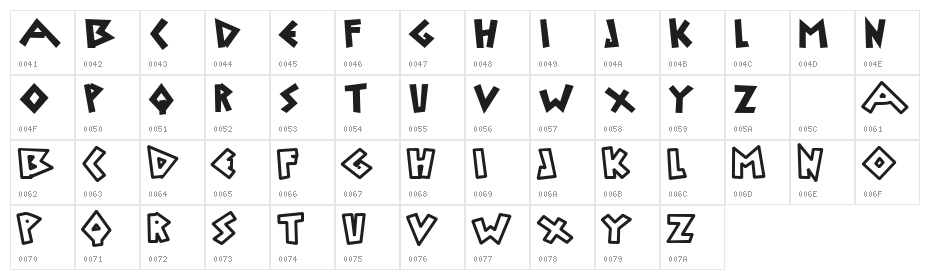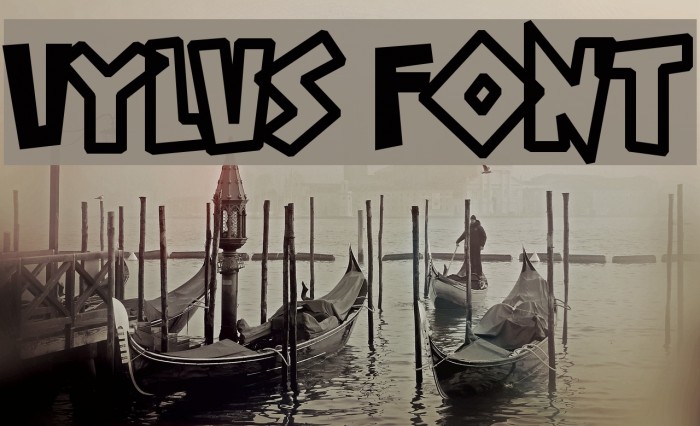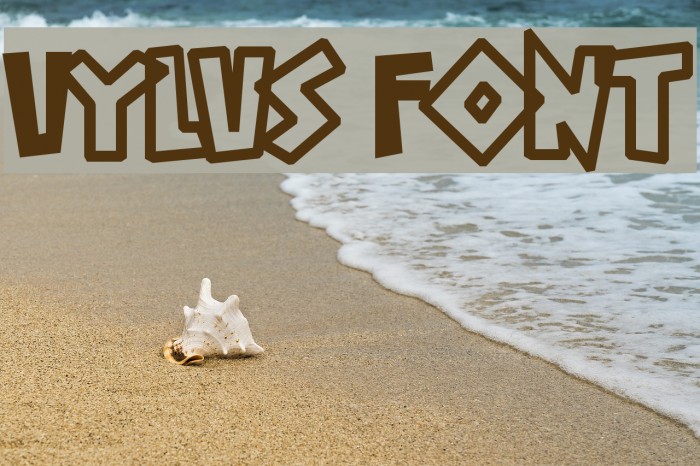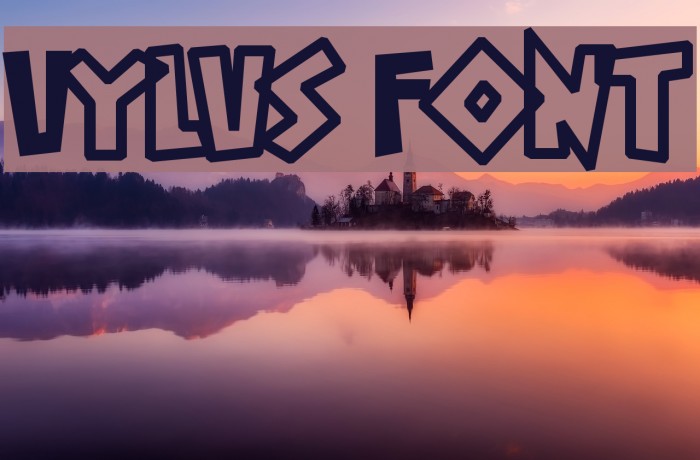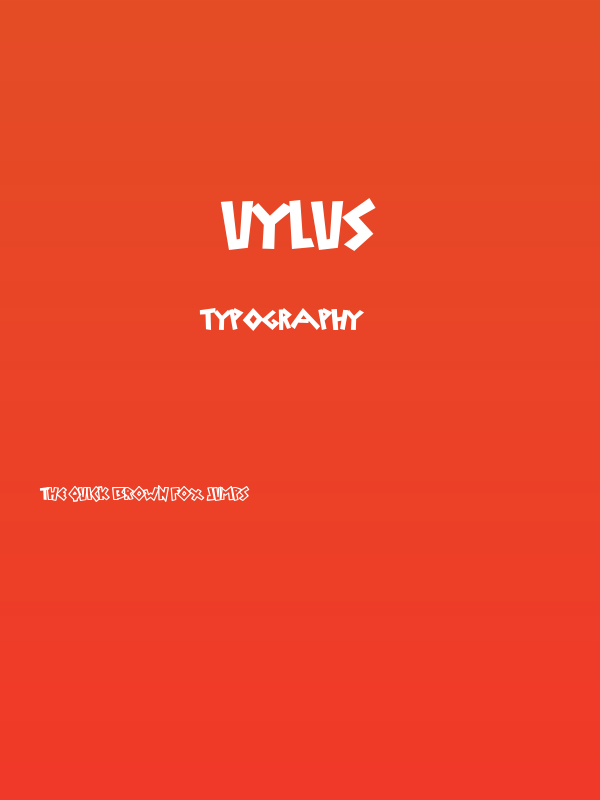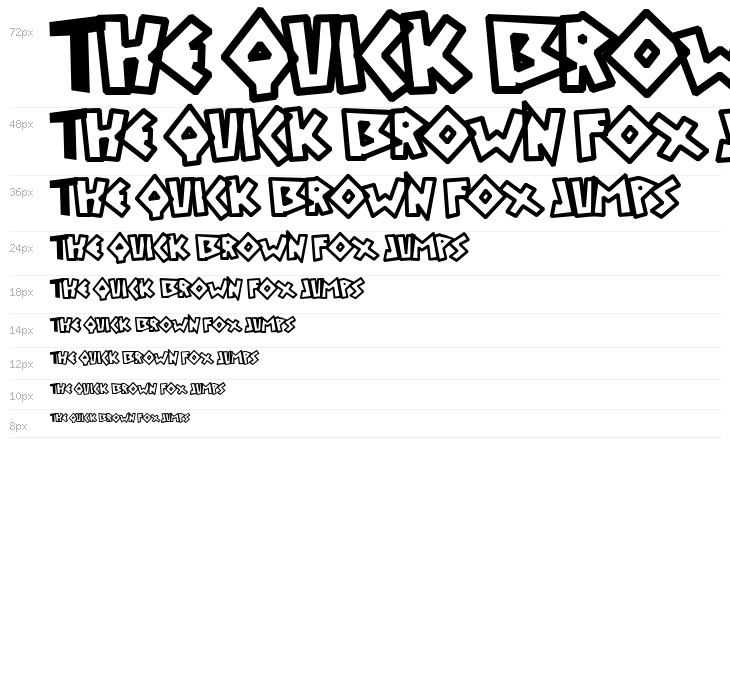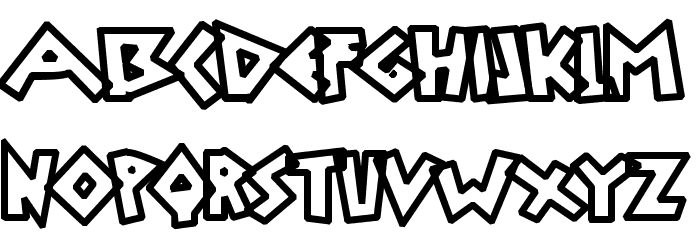
Uylus Font
Uylus Description
This font features a bold, angular design with a strong geometric influence. The uppercase letters are characterized by sharp edges and a dynamic, edgy appearance, making them stand out with a sense of movement and energy. The lowercase letters maintain the same angular style, ensuring consistency throughout the typeface. The numbers and special characters follow the same design principles, providing a cohesive look. This font's unique style is reminiscent of graffiti or street art, with a modern twist that makes it suitable for eye-catching designs.
| Proposed Projects | Ideal for urban-themed posters, music album covers, streetwear branding, and dynamic logo designs. |